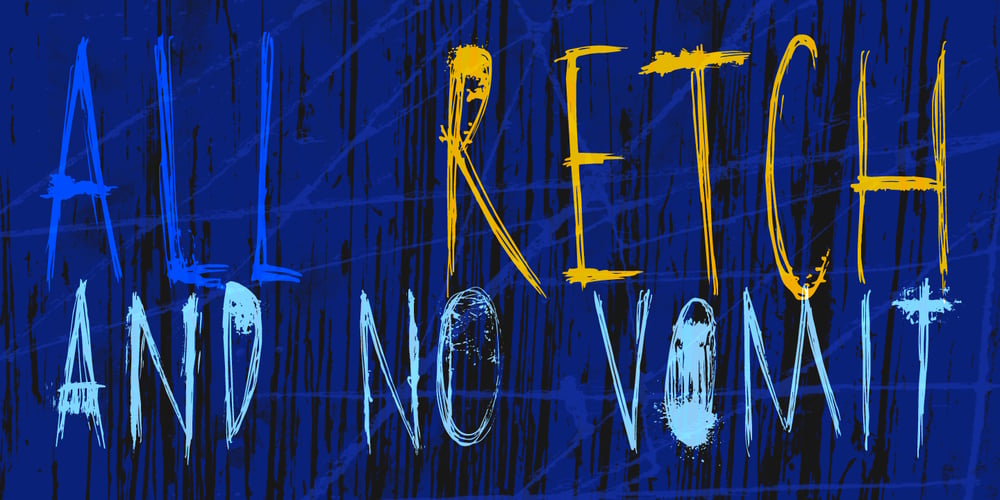
Retch Font Family was designed by David Kerkhoff and published by Hanoded. Retch contains 3 styles and family package options. Retch – what’s in a name? Retch is a unique typeface, heaving with character. It is scary and grotesque and is made to look like letters scratched onto a metal surface. Retch spits out most Latin based languages.